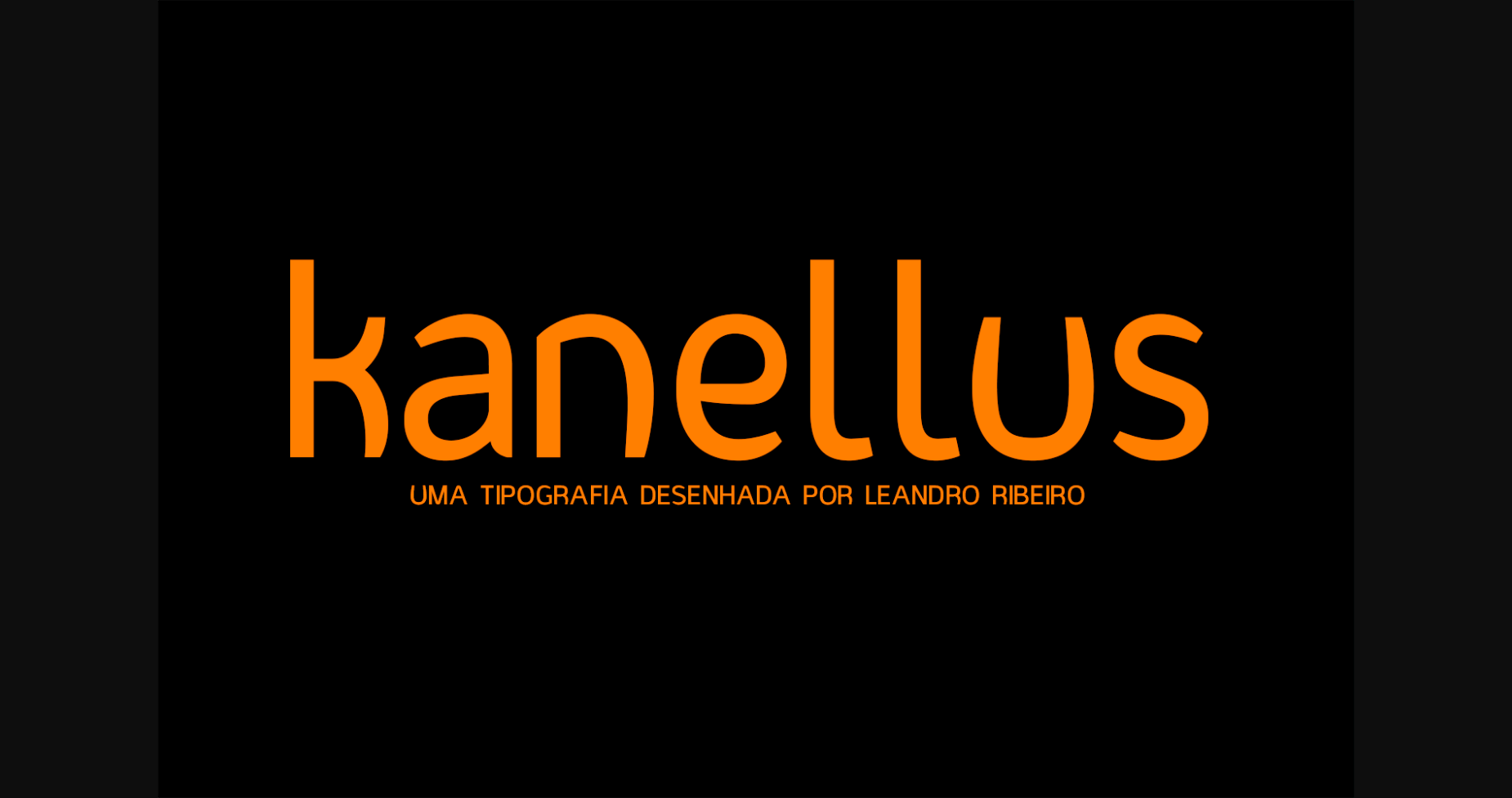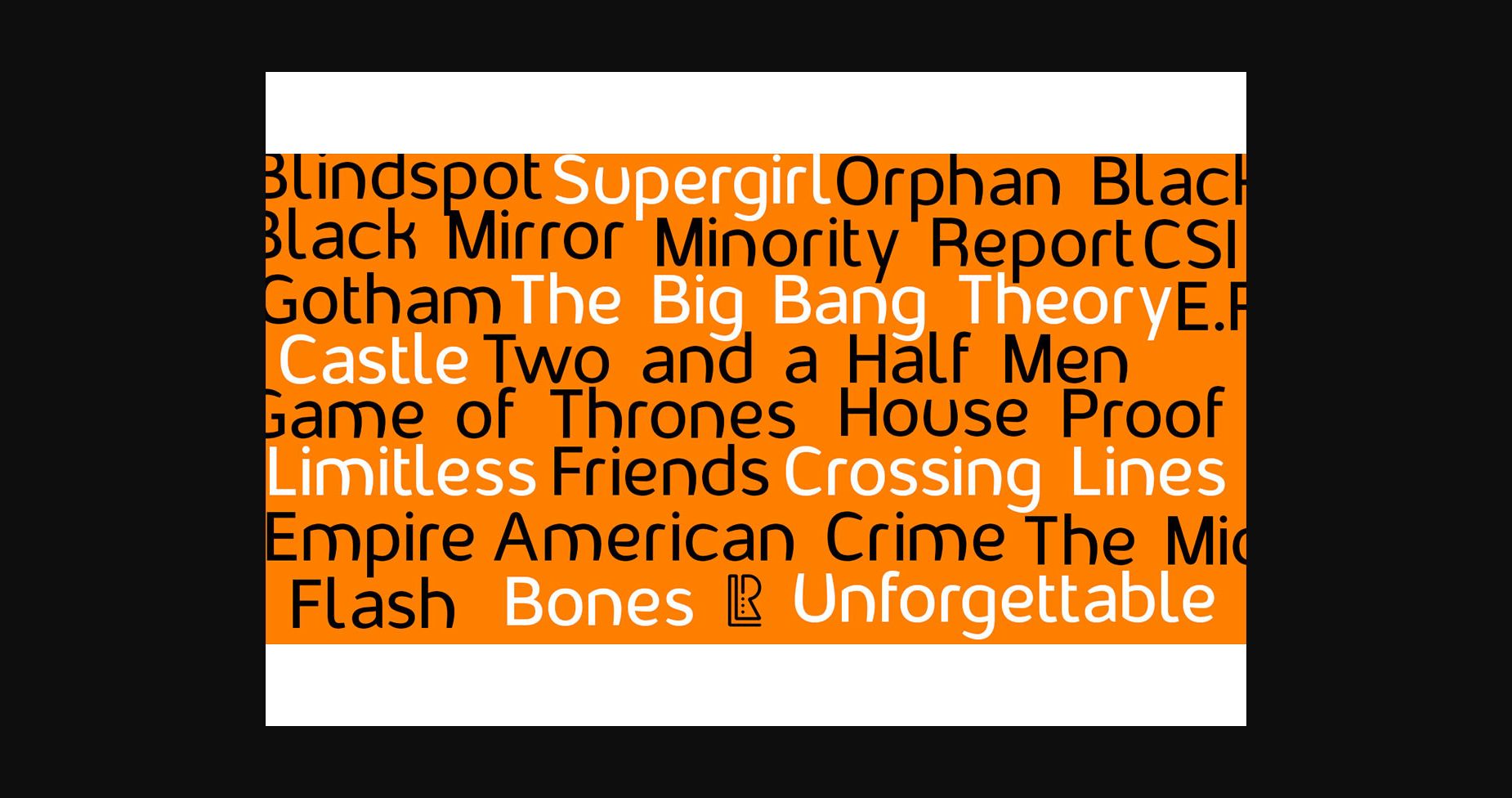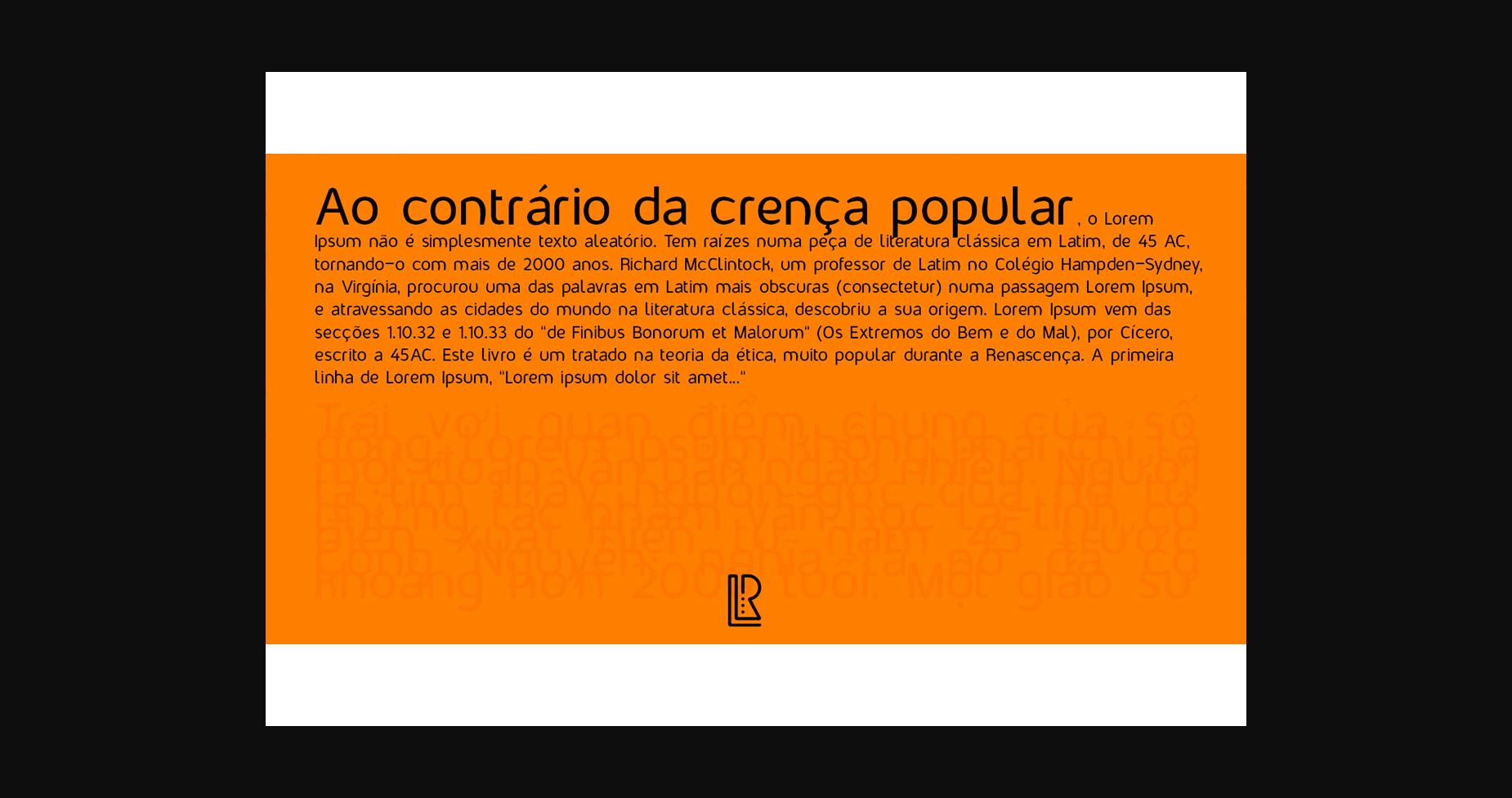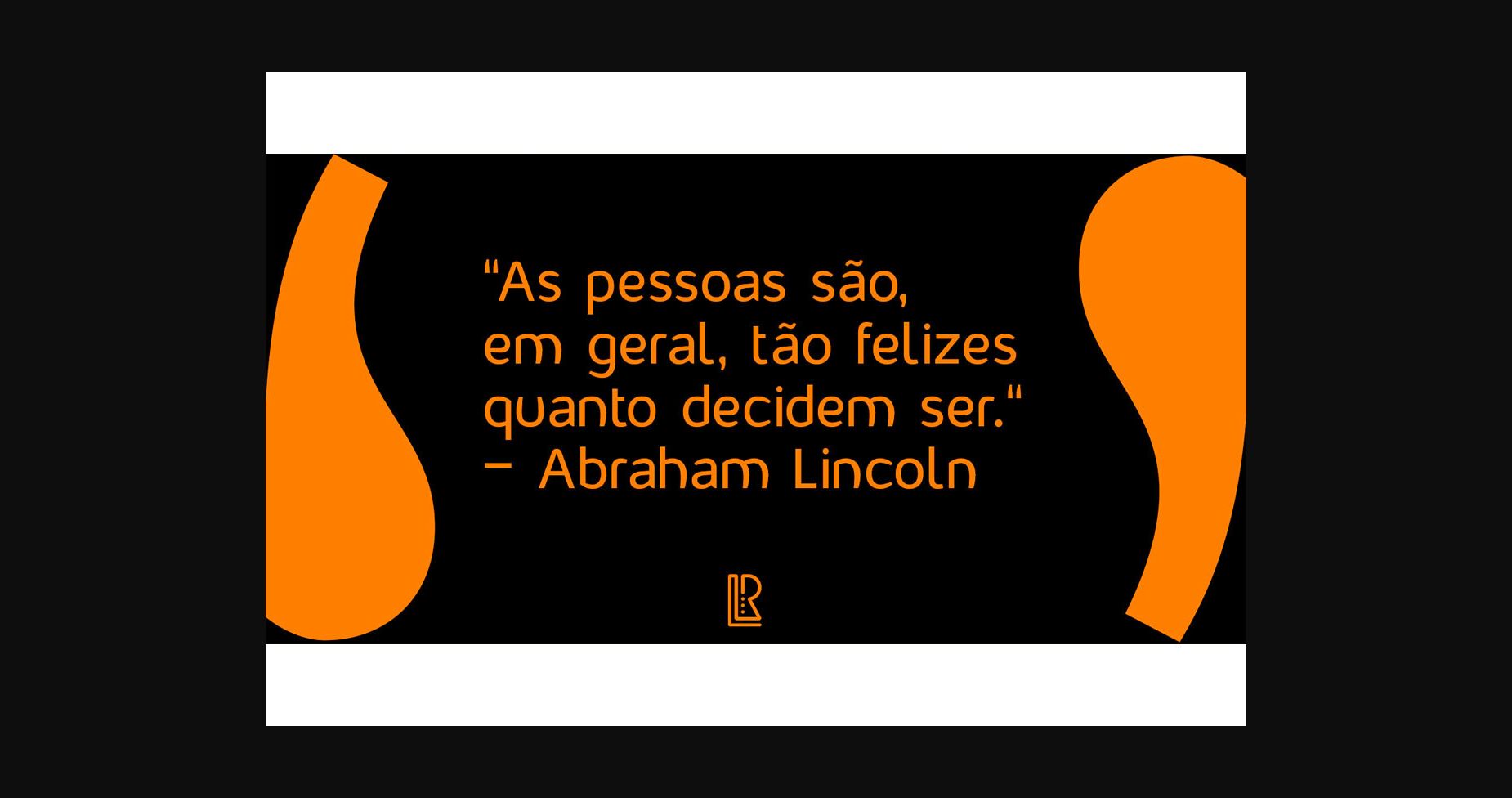
About Kanellus Font
Kanellus is a cool and adaptable sans serif font. It is suitable for book texts, documentation, business reports, business correspondence, magazines, newspapers, posters, advertisements, multimedia, and corporate design.